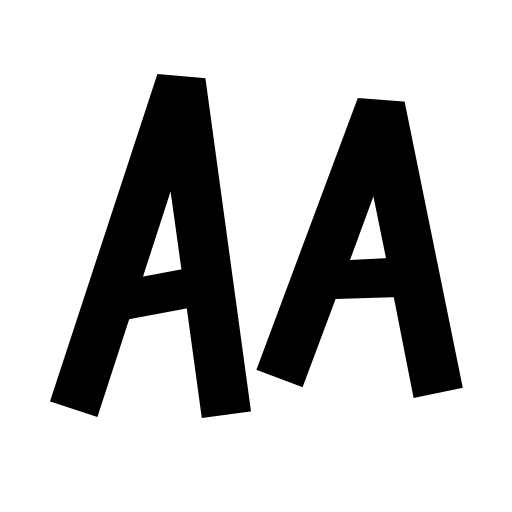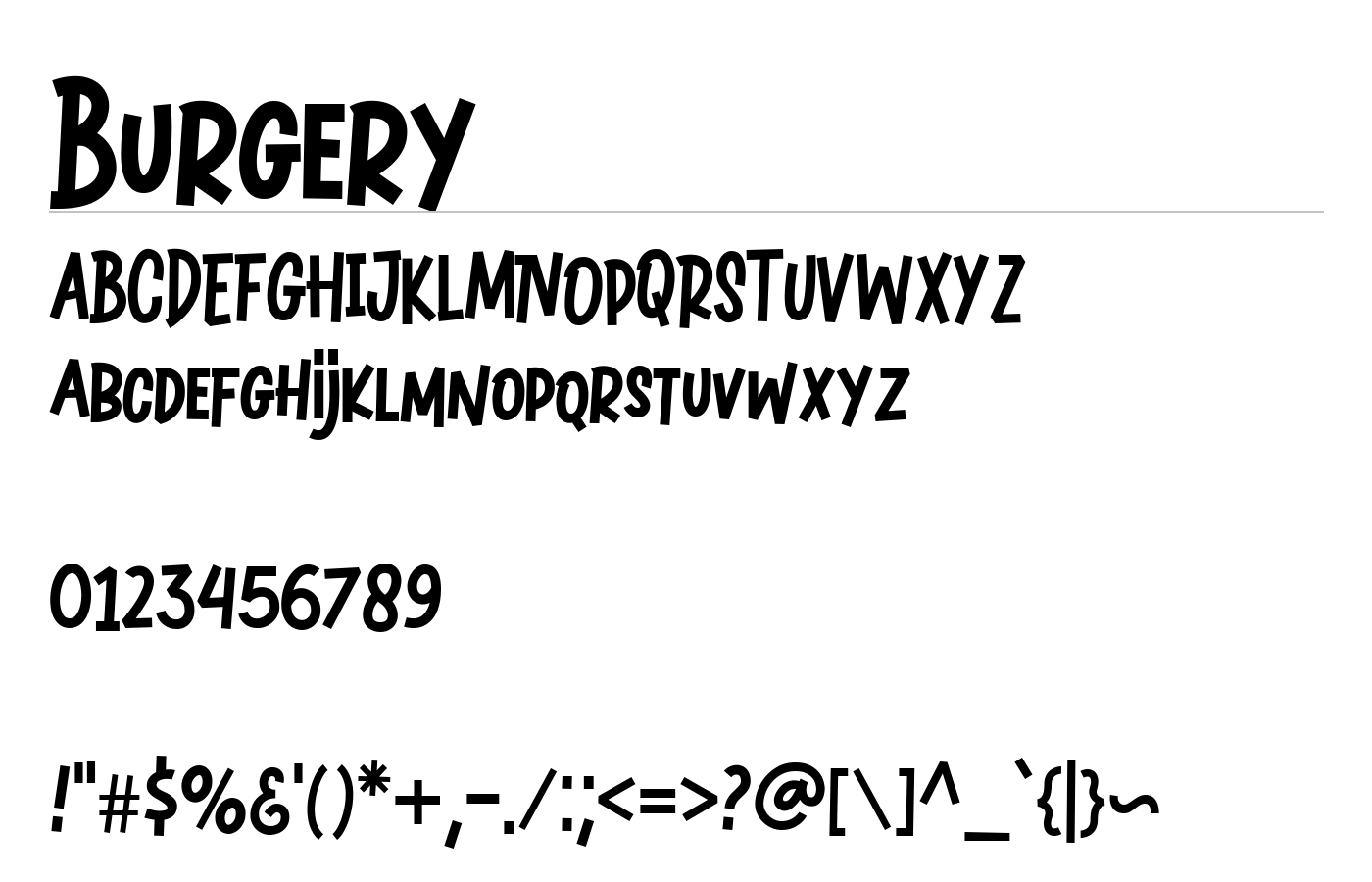
Burgery is a bold, playful sans-serif font with a quirky, hand-drawn feel, characterized by irregular, slightly tilted letterforms and varying stroke widths that add energetic personality. Its tall x-height and tight spacing make it eye-catching and ideal for fun, casual branding, lively headlines, and informal packaging where a friendly and approachable vibe is desired. This font works especially well in creative, youth-oriented contexts that want to stand out with a unique, dynamic look.
Burgery Font
About Burgery Font
| Font family | Burgery Font |